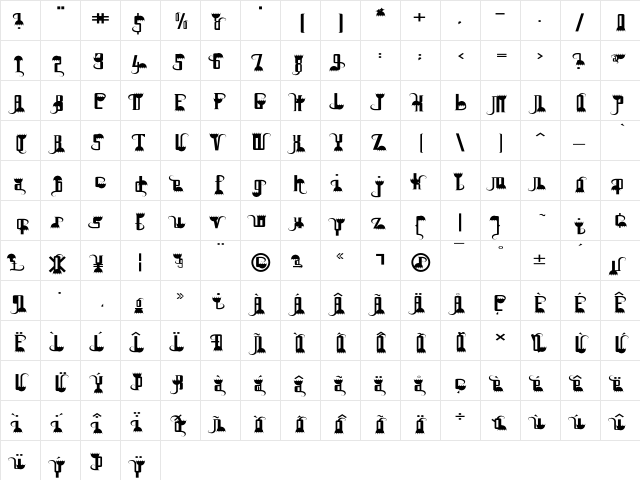
Flytrap Regular
Design Context for Flytrap Typeface
Flytrap is a composed and adaptable typeface that performs quietly and consistently across a wide range of design contexts.